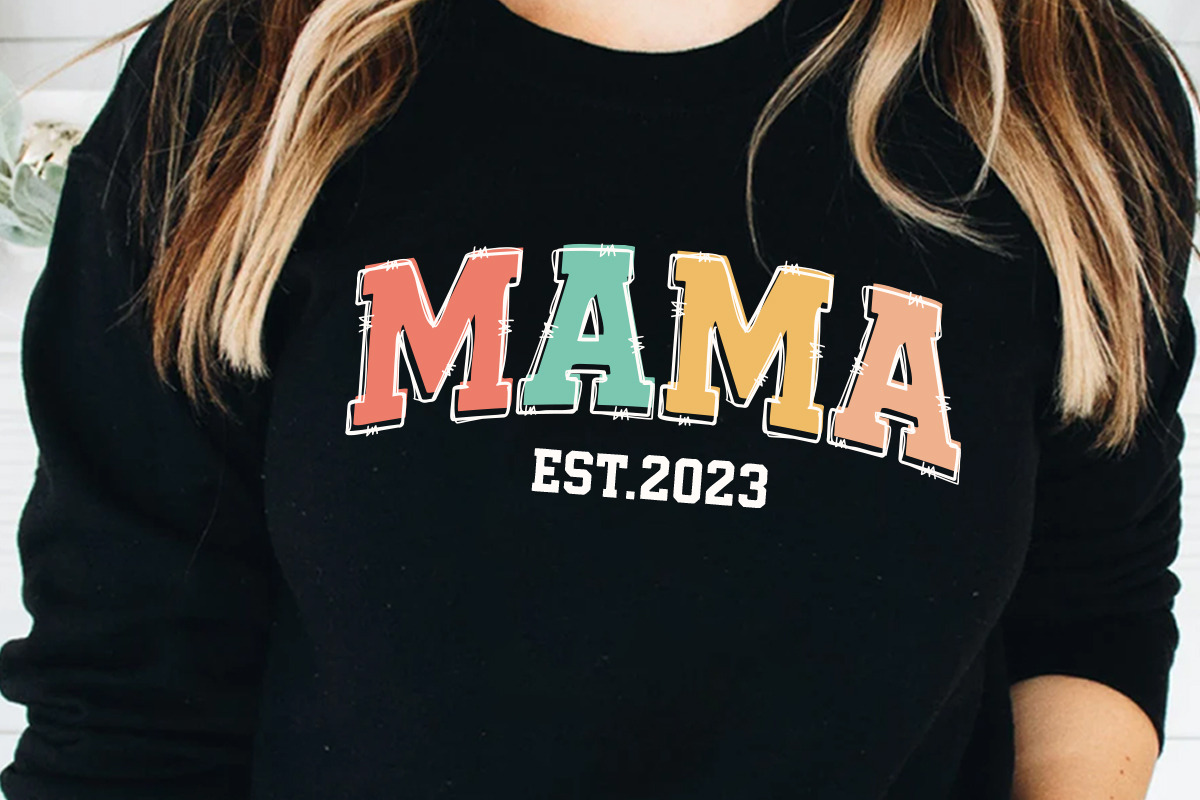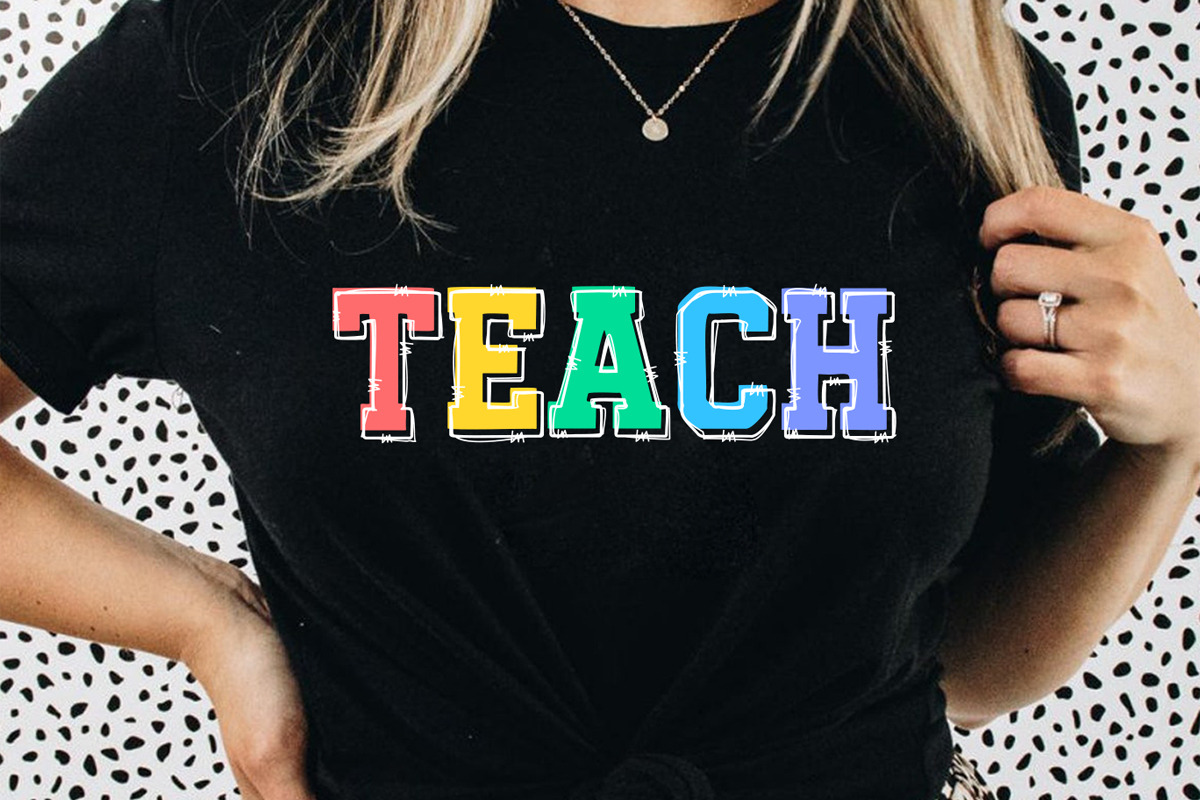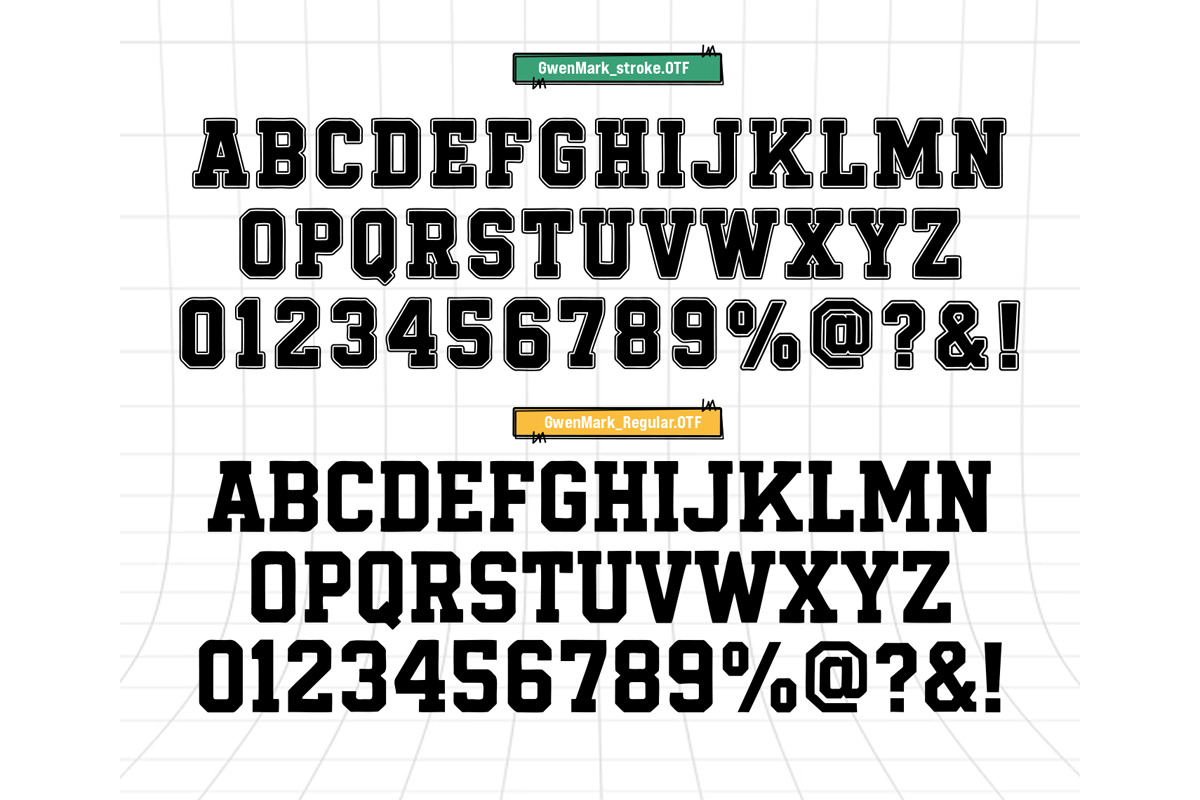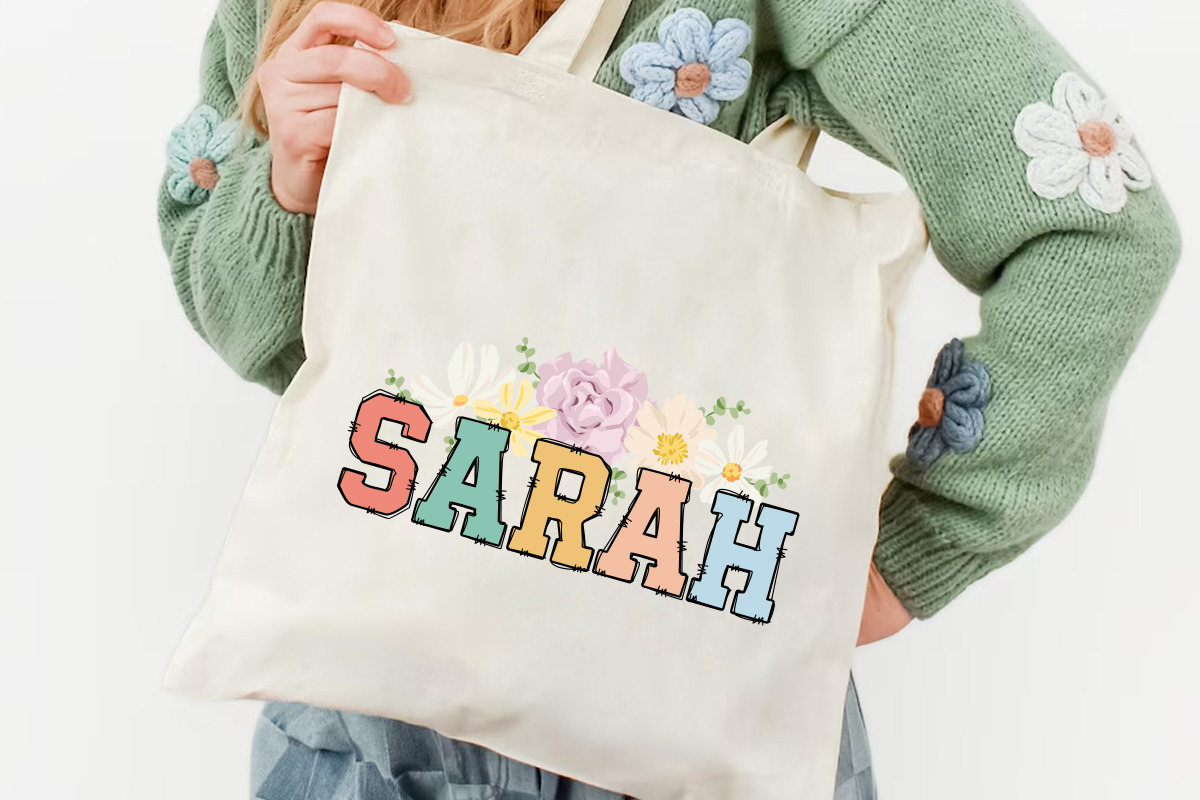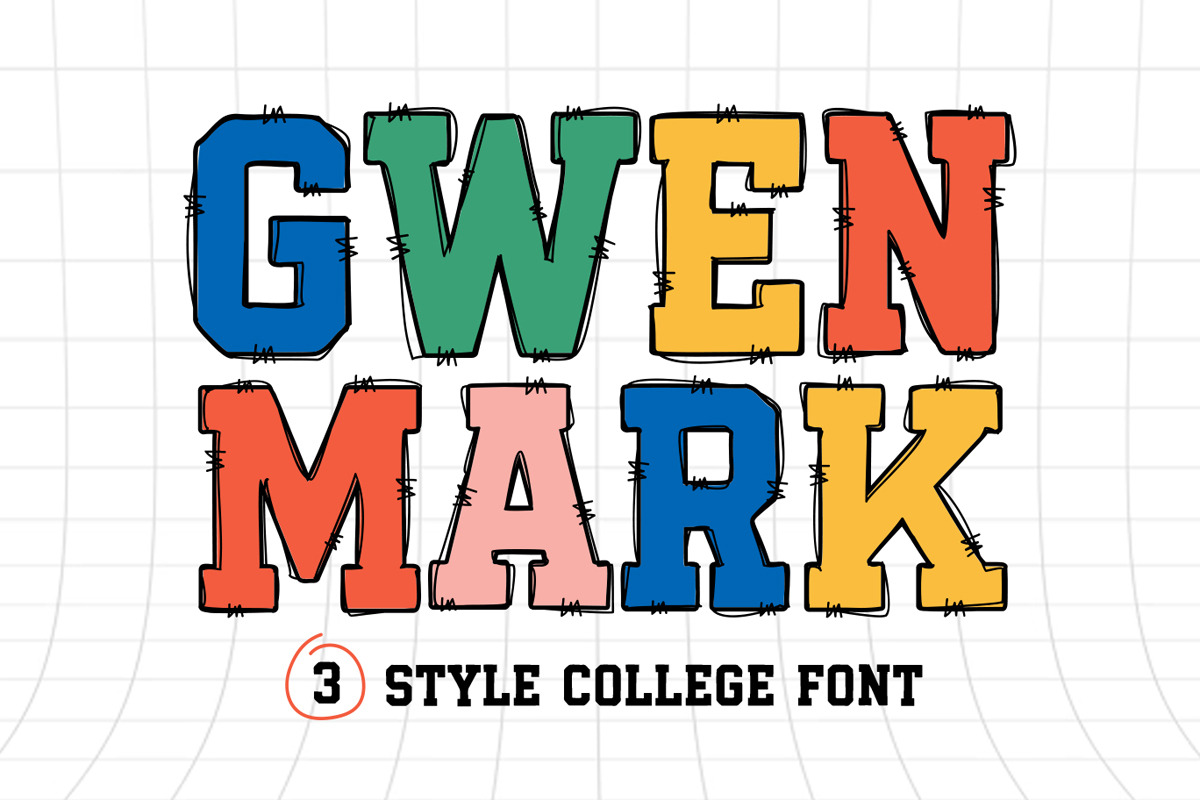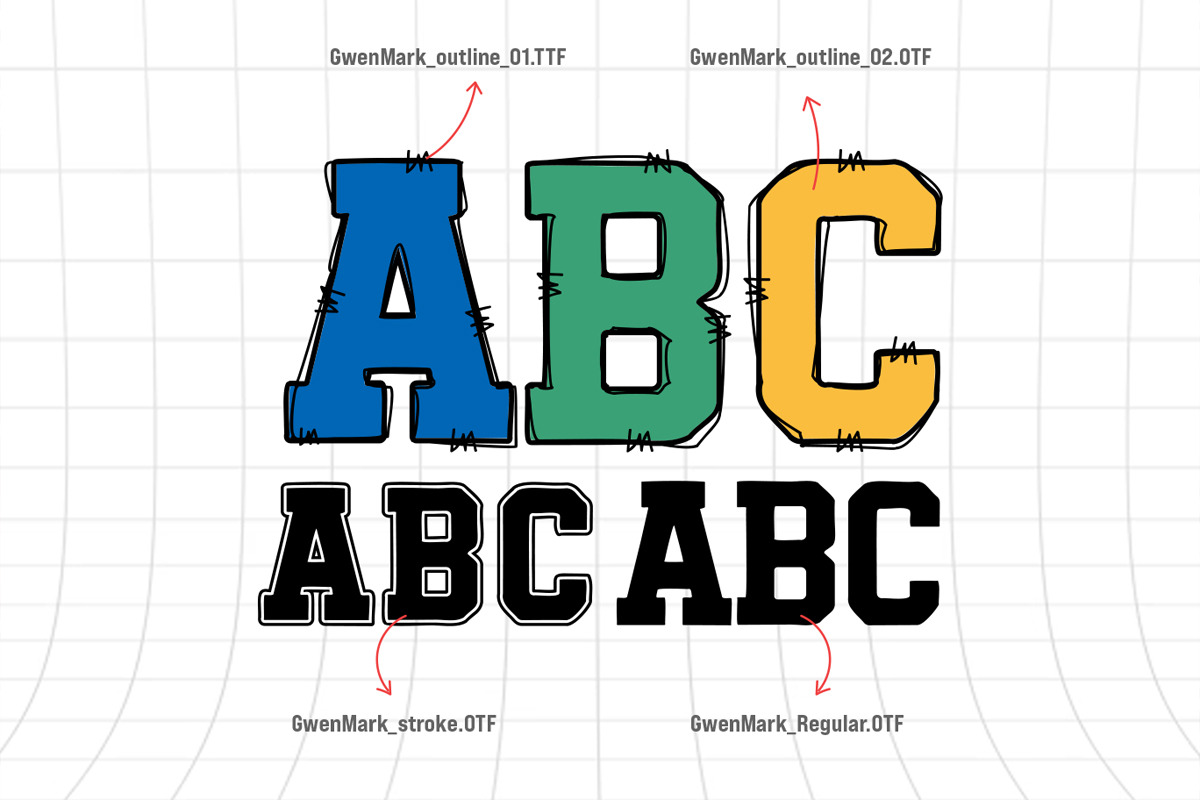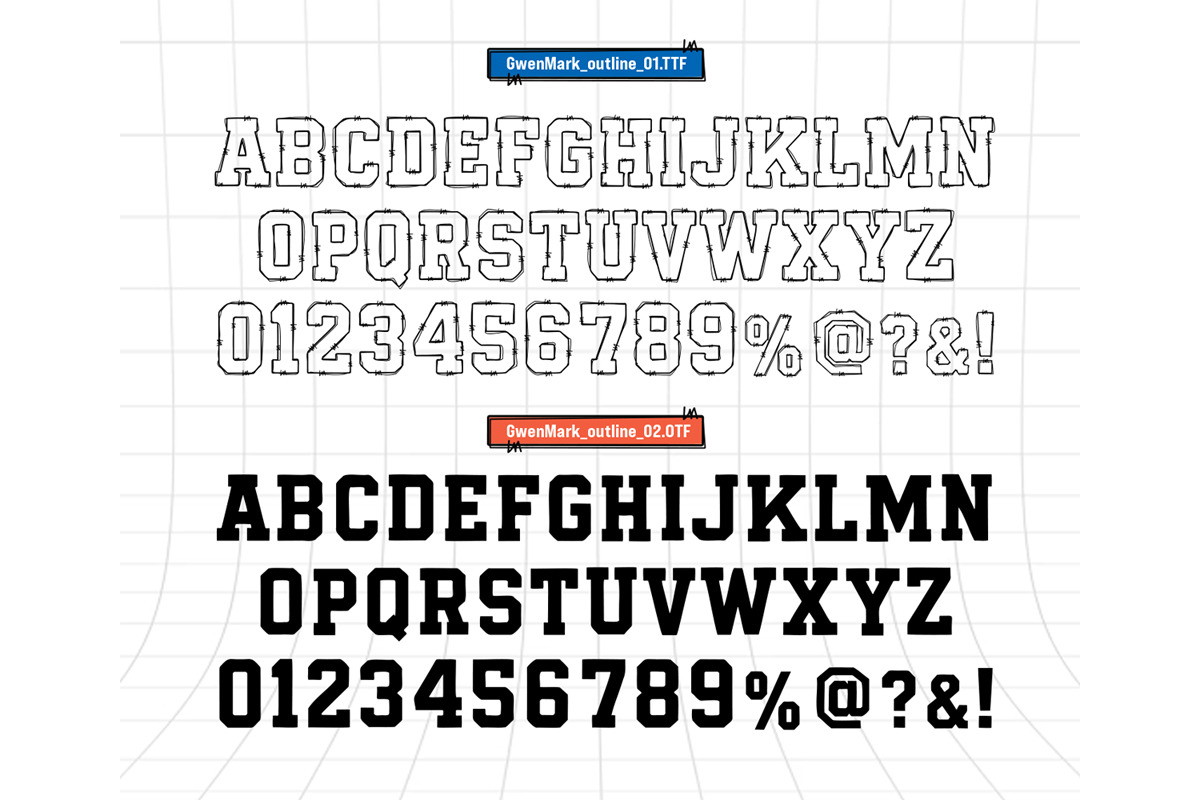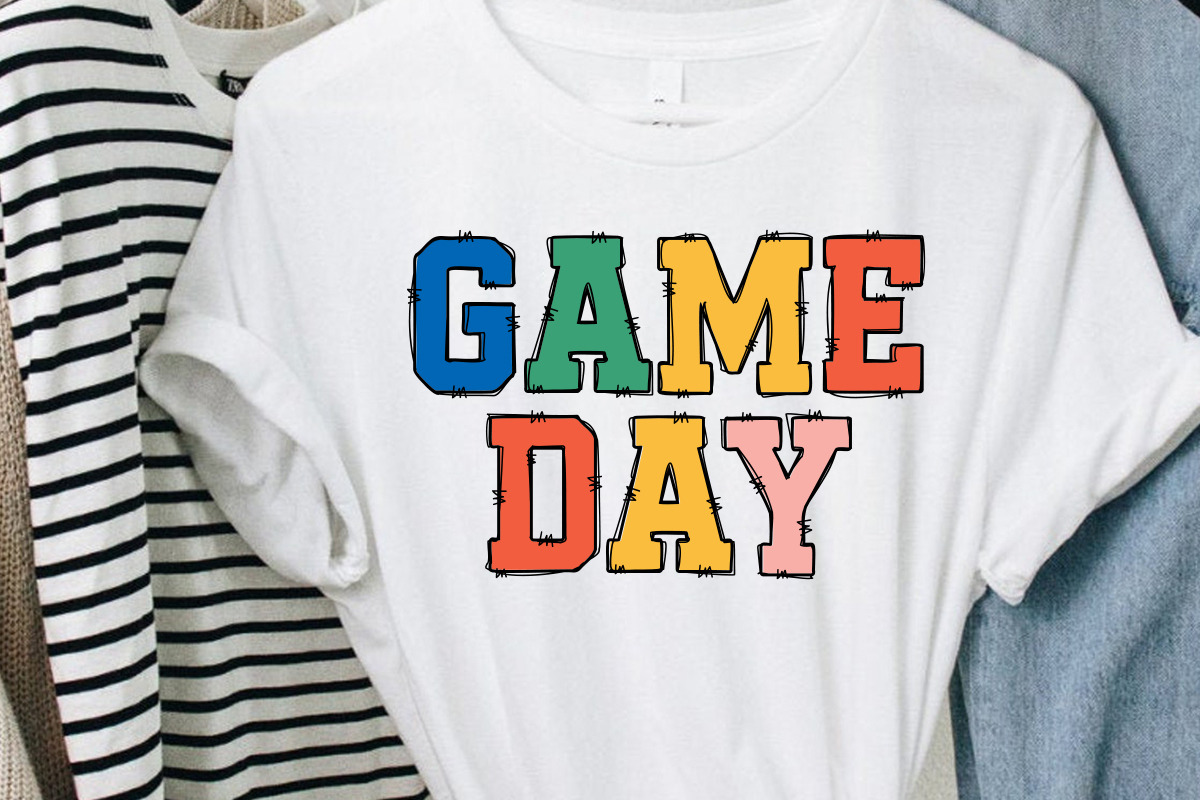
Gwen Mark - Varsity College Font
Gwen Mark is a unique varsity college grunge decorative font perfect to be used in your new creative projects, such as crafting, t-shirt designs, posters, digital designs, presentations, book covers, and much more. Add it to your most creative ideas, and notice how it makes them come alive!